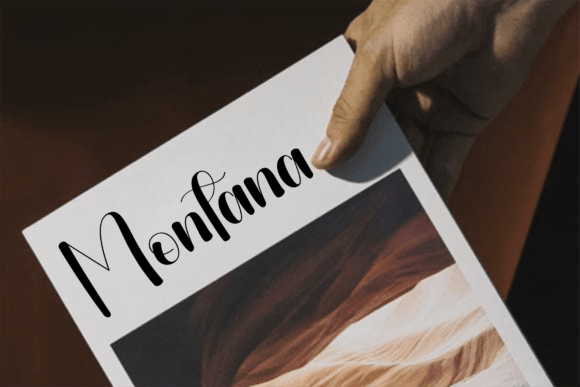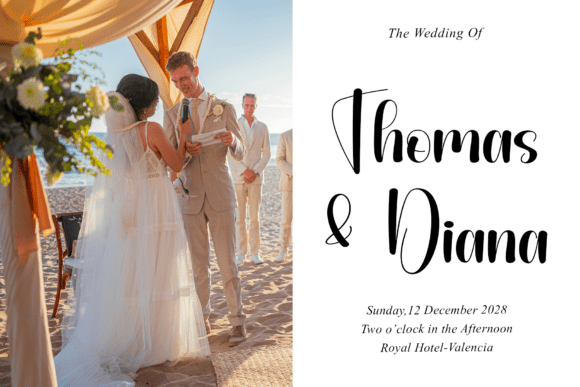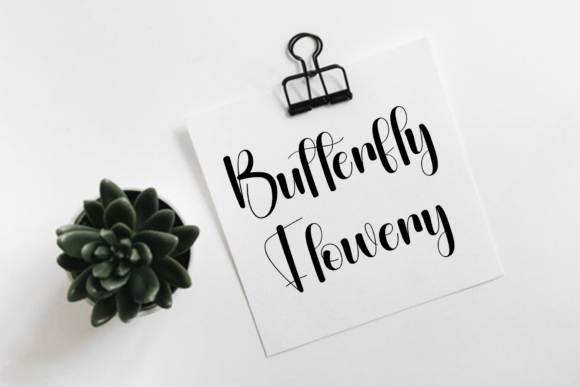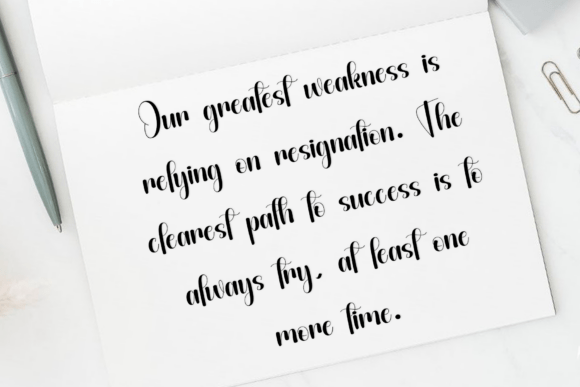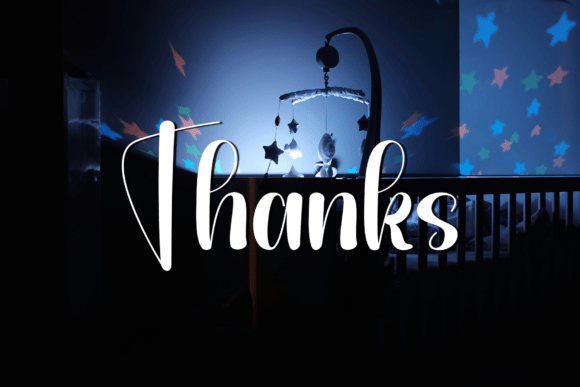
Dream Big with Baby Starnight: The Luxury Handwritten Font for Whimsical Designs
Are you a designer or crafter looking for a unique and elegant font to bring a touch of magic to your typography? Look no further than Baby Starnight, a luxury handwritten font that embodies the gentle, lullaby-like rhythm of a whimsical boutique. With its elegant, vertical letterforms and soft, ink-brushed texture, Baby Starnight is the perfect choice for creating enchanting designs that capture the essence of childhood wonder.
The Characteristics of Baby Starnight
Baby Starnight features elegant, vertical letterforms with a “whimsical-boutique” soul, blending sweeping cursive loops with a soft, ink-brushed texture. This unique combination gives the font a dreamy baseline and a sophisticated flow, making it perfect for a variety of design applications. Whether you’re creating independent nursery decor, boutique baby apparel branding, high-end children’s storytelling, or enchanting “magical-moment” social media headers, Baby Starnight is the premier choice for designers and crafters who want to add a touch of luxury to their work.
Design Applications for Baby Starnight
Baby Starnight is a versatile font that can be used in a variety of design applications, including:
- Independent Nursery Decor: Create a whimsical and enchanting atmosphere in nurseries with Baby Starnight’s elegant and dreamy typography. Use it to design wall art, nursery rhymes, and other decorative elements that will delight both parents and babies.
- Boutique Baby Apparel Branding: Give your baby apparel brand a touch of luxury with Baby Starnight’s sophisticated and elegant typography. Use it to create eye-catching labels, packaging, and marketing materials that will set your brand apart from the rest.
- High-End Children’s Storytelling: Bring your children’s stories to life with Baby Starnight’s whimsical and enchanting typography. Use it to design book covers, illustrations, and text that will transport young readers to magical worlds.
- Enchanting “Magical-Moment” Social Media Headers: Create a touch of magic on social media with Baby Starnight’s elegant and dreamy typography. Use it to design eye-catching headers and graphics that will make your followers feel like they’re experiencing a special moment.
Why Choose Baby Starnight?
So why choose Baby Starnight over other fonts? Here are just a few reasons why designers and crafters love this luxury handwritten font:
- Unique and Elegant: Baby Starnight’s elegant, vertical letterforms and soft, ink-brushed texture make it a truly unique and elegant font that will add a touch of luxury to your designs.
- Whimsical and Enchanting: With its dreamy baseline and sophisticated flow, Baby Starnight is the perfect font for creating whimsical and enchanting designs that capture the essence of childhood wonder.
- Versatile: Baby Starnight can be used in a variety of design applications, from nursery decor to social media headers, making it a versatile font that will become a staple in your design toolkit.
Tips for Using Baby Starnight
Here are a few tips for getting the most out of Baby Starnight:
- Experiment with Font Sizes: Baby Starnight looks great in a variety of font sizes, from large headings to small body text. Experiment with different font sizes to find the perfect balance for your design.
- Pair with Other Fonts: Baby Starnight pairs well with a variety of other fonts, from sans-serif fonts to script fonts. Experiment with different font combinations to find the perfect pairing for your design.
- Use with Colors and Textures: Baby Starnight looks great with a variety of colors and textures, from soft pastels to rich jewel tones. Experiment with different colors and textures to find the perfect combination for your design.
In conclusion, Baby Starnight is a luxury handwritten font that brings a gentle, lullaby-like rhythm to your typography. With its elegant, vertical letterforms and soft, ink-brushed texture, Baby Starnight is the perfect choice for designers and crafters who want to add a touch of magic to their designs. Whether you’re creating independent nursery decor, boutique baby apparel branding, high-end children’s storytelling, or enchanting “magical-moment” social media headers, Baby Starnight is the premier choice for creating whimsical and enchanting designs that capture the essence of childhood wonder.